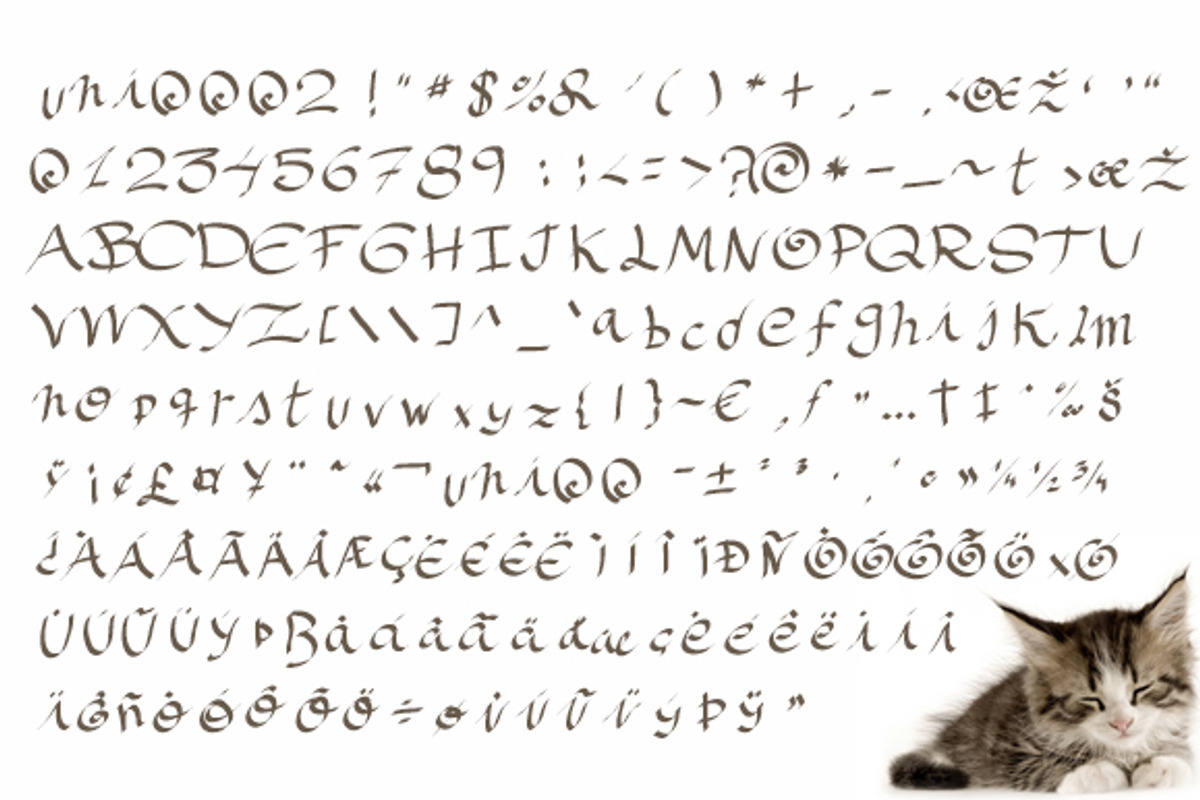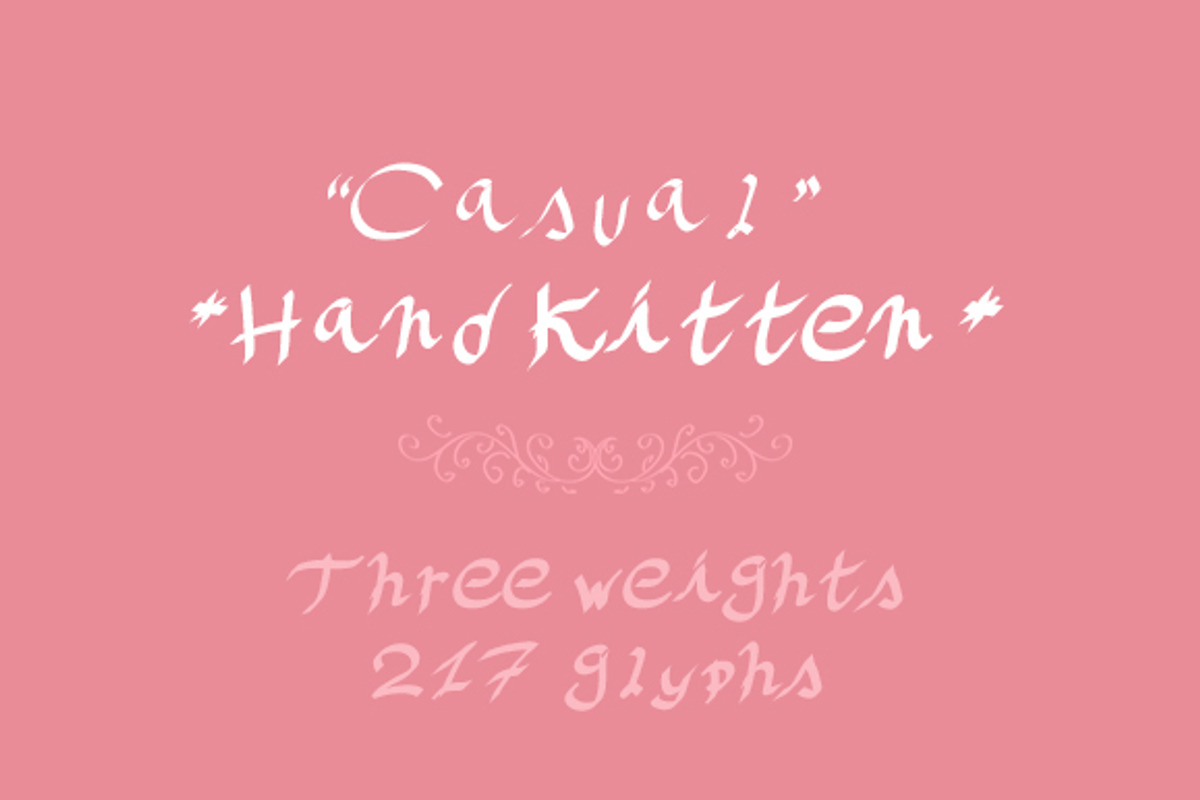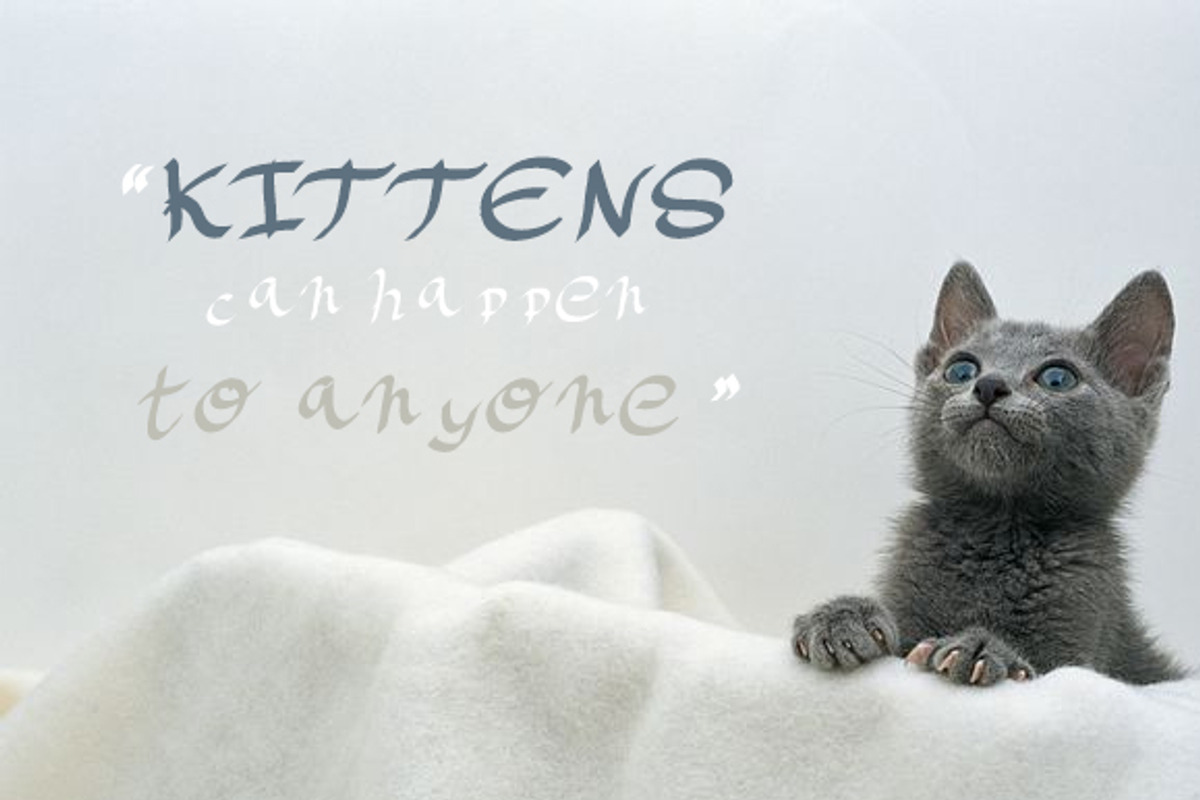
Casual Handkitten Font Family
Casual Handkitten Font Family by LuisFaus is a font selected for branding, posters, packaging, typography.
Why Casual Handkitten Font Family is worth a look
Casual Handkitten Font Family by LuisFaus fits naturally into Branding, posters, packaging, typography.